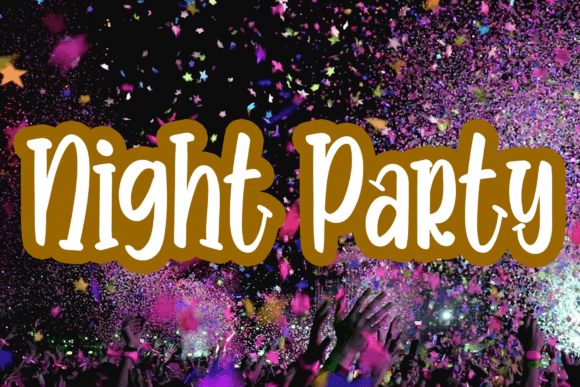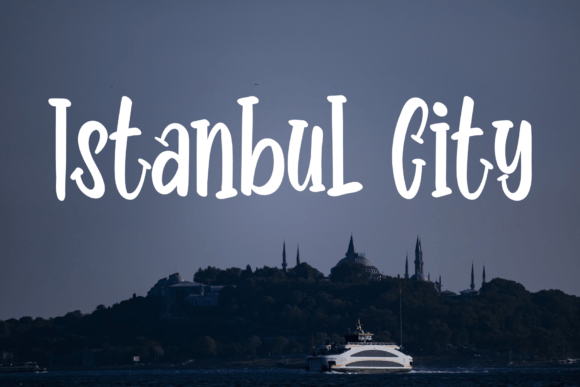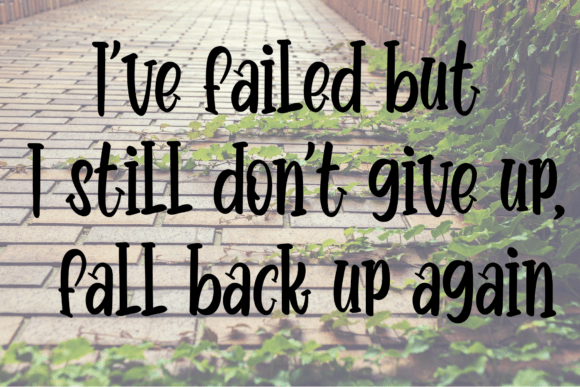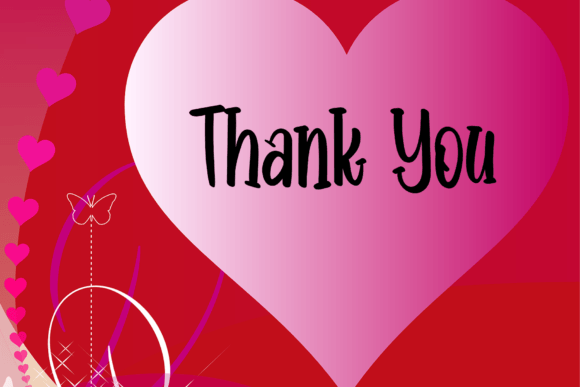
Baby Designer Font: The Perfect Choice for Creative Projects
In the world of design, fonts play a crucial role in conveying the intended message and creating a lasting impression. When it comes to creating visually appealing and engaging content, the choice of font is essential. One such font that has gained popularity among designers and crafters is the Baby Designer Font. In this article, we’ll explore the features and benefits of this unique font and why it’s a great addition to your design arsenal.
What is Baby Designer Font?
Baby Designer Font is a carefully crafted display font that boasts a unique and casual look. Designed with great attention to detail, this font is perfect for creating eye-catching titles, invitations, letters, and other informal products. Its playful and friendly appearance makes it an ideal choice for designers and crafters looking to add a personal touch to their work.
Key Features of Baby Designer Font
- Unique and Casual Look: Baby Designer Font has a distinct and laid-back appearance that sets it apart from other fonts.
- Display Font: This font is specifically designed for display purposes, making it perfect for titles, headings, and other attention-grabbing elements.
- Informal and Friendly: The font’s casual vibe makes it suitable for informal products, such as invitations, letters, and social media graphics.
- Easy to Read: Despite its playful appearance, Baby Designer Font is easy to read, ensuring that your message gets across clearly.
Benefits of Using Baby Designer Font
So, why should you choose Baby Designer Font for your design projects? Here are some benefits that make it a great choice:
- Adds a Personal Touch: The font’s unique and casual look helps add a personal touch to your designs, making them more relatable and engaging.
- Versatile: Baby Designer Font can be used for a wide range of design projects, from titles and invitations to social media graphics and more.
- Time-Saving: With its pre-designed characters and symbols, Baby Designer Font saves you time and effort, allowing you to focus on other aspects of your design.
- High-Quality: This font is crafted with great care, ensuring that it looks great in various resolutions and sizes.
Who Can Benefit from Baby Designer Font?
Baby Designer Font is a versatile font that can benefit a range of designers and crafters, including:
- Graphic Designers: Add a personal touch to your designs and create eye-catching titles and headings.
- Crafters: Use Baby Designer Font to create beautiful and unique handmade products, such as cards, invitations, and scrapbook pages.
- Social Media Managers: Create engaging social media graphics and posts that stand out from the crowd.
- Stationery Designers: Design beautiful and unique stationery sets, including invitations, greeting cards, and more.
Tips for Using Baby Designer Font Effectively
To get the most out of Baby Designer Font, here are some tips to keep in mind:
- Use it for Display Purposes: Baby Designer Font is designed for display purposes, so use it for titles, headings, and other attention-grabbing elements.
- Pair it with Other Fonts: Experiment with pairing Baby Designer Font with other fonts to create visually appealing combinations.
- Adjust Font Size and Style: Play around with font sizes and styles to create visual hierarchy and add emphasis to your text.
In conclusion, Baby Designer Font is a unique and versatile font that’s perfect for designers and crafters looking to add a personal touch to their work. With its casual and playful appearance, it’s ideal for creating eye-catching titles, invitations, letters, and other informal products. Whether you’re a graphic designer, crafter, or social media manager, Baby Designer Font is a great addition to your design arsenal. So, download Baby Designer Font today and take your designs to the next level!